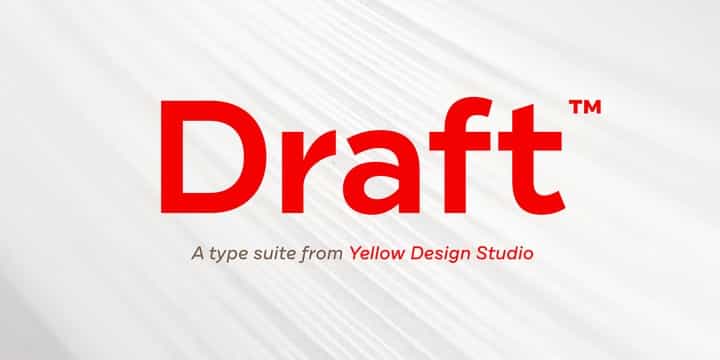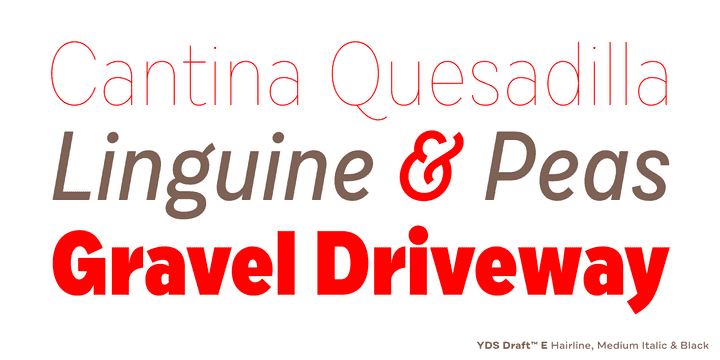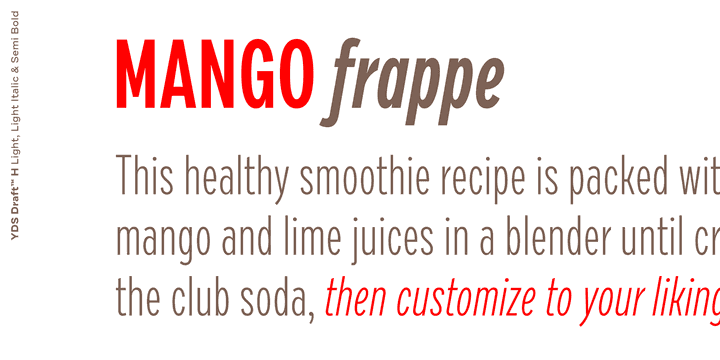
The Sans Font Draft has finally entered the stage. Created and handed out by Yellow Design Studio, Draft by Yellow Design Studio is a collection of 144 fonts that mix the modern friendly look with an entrepreneurial spirit.